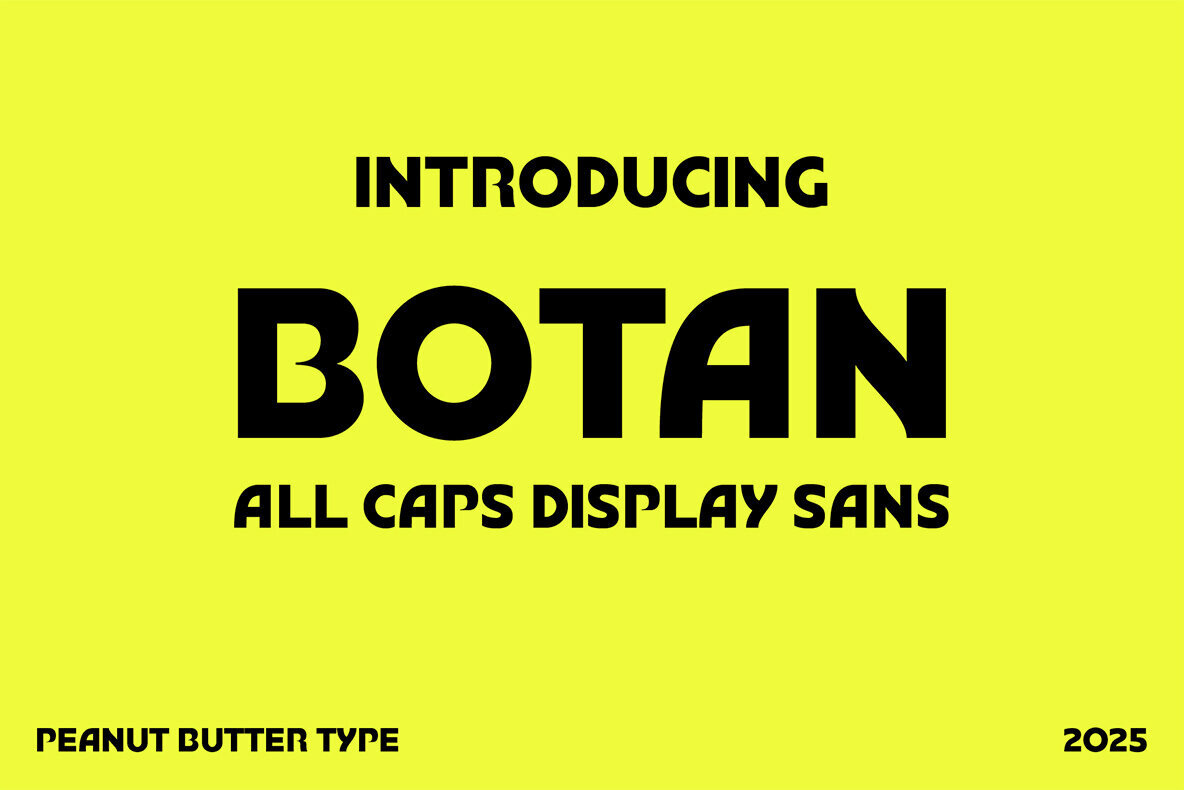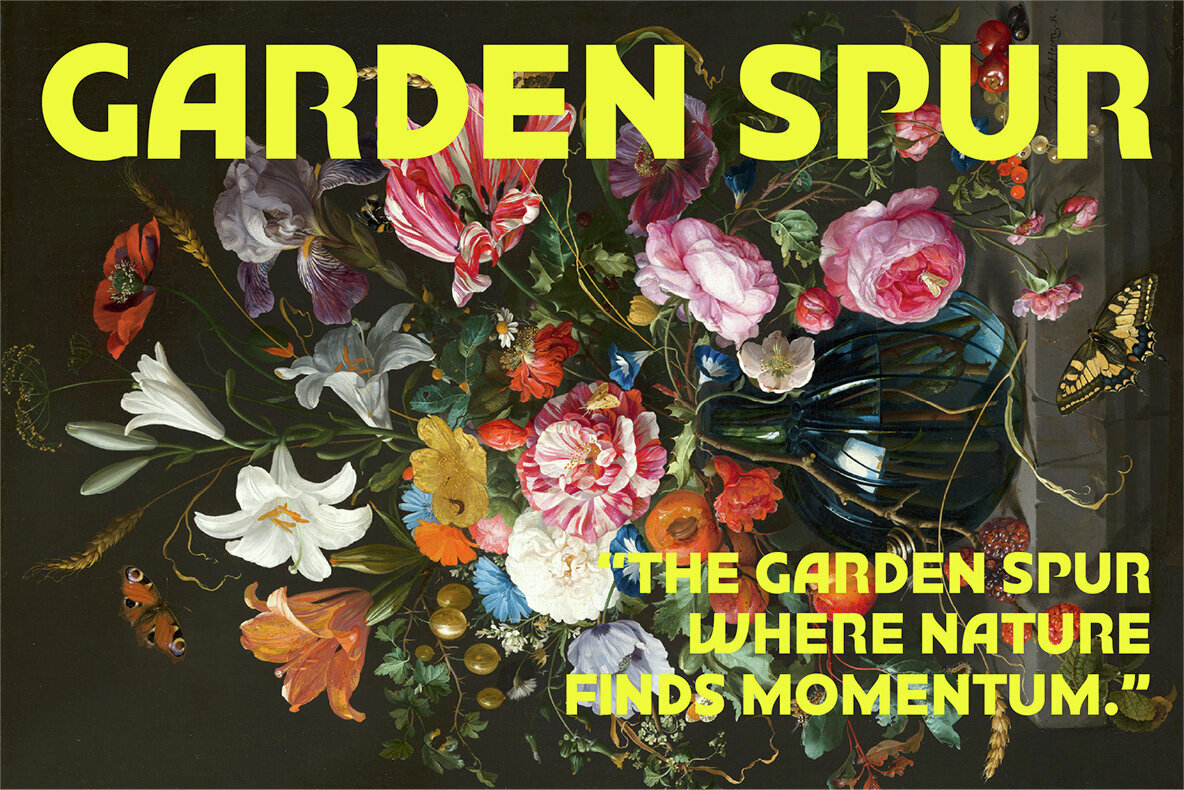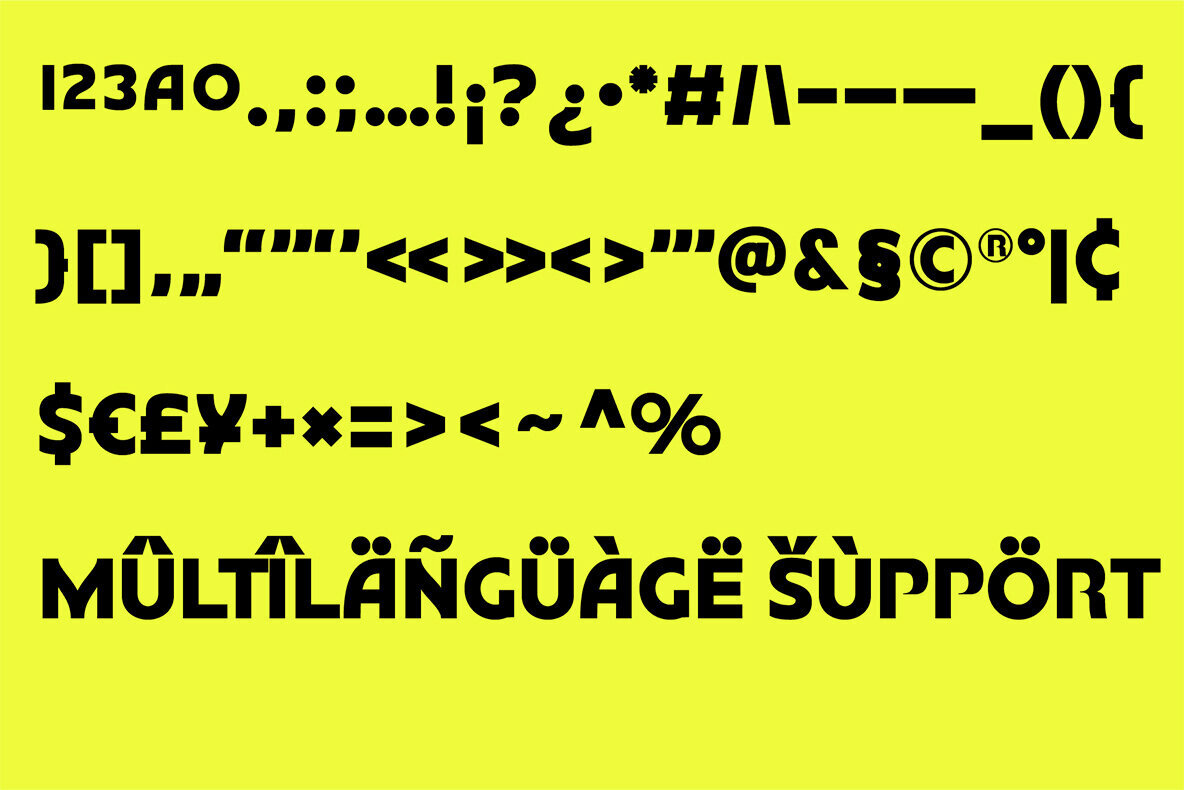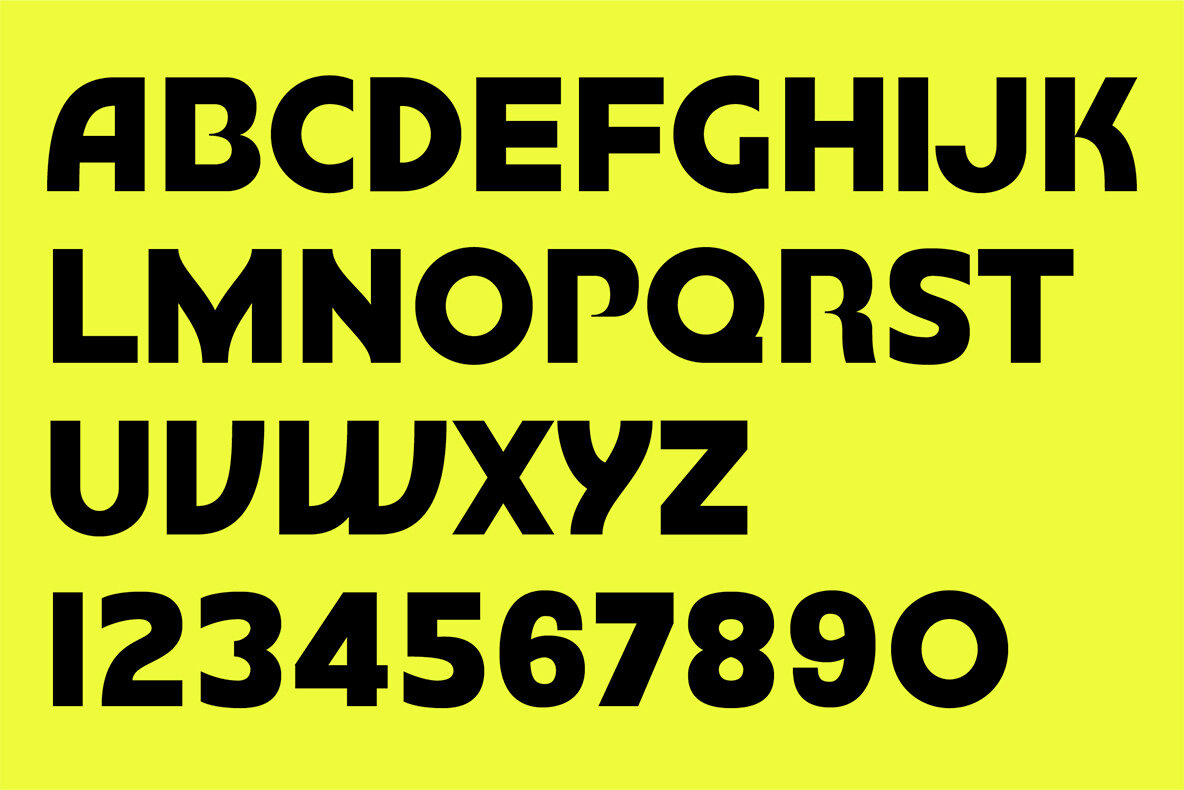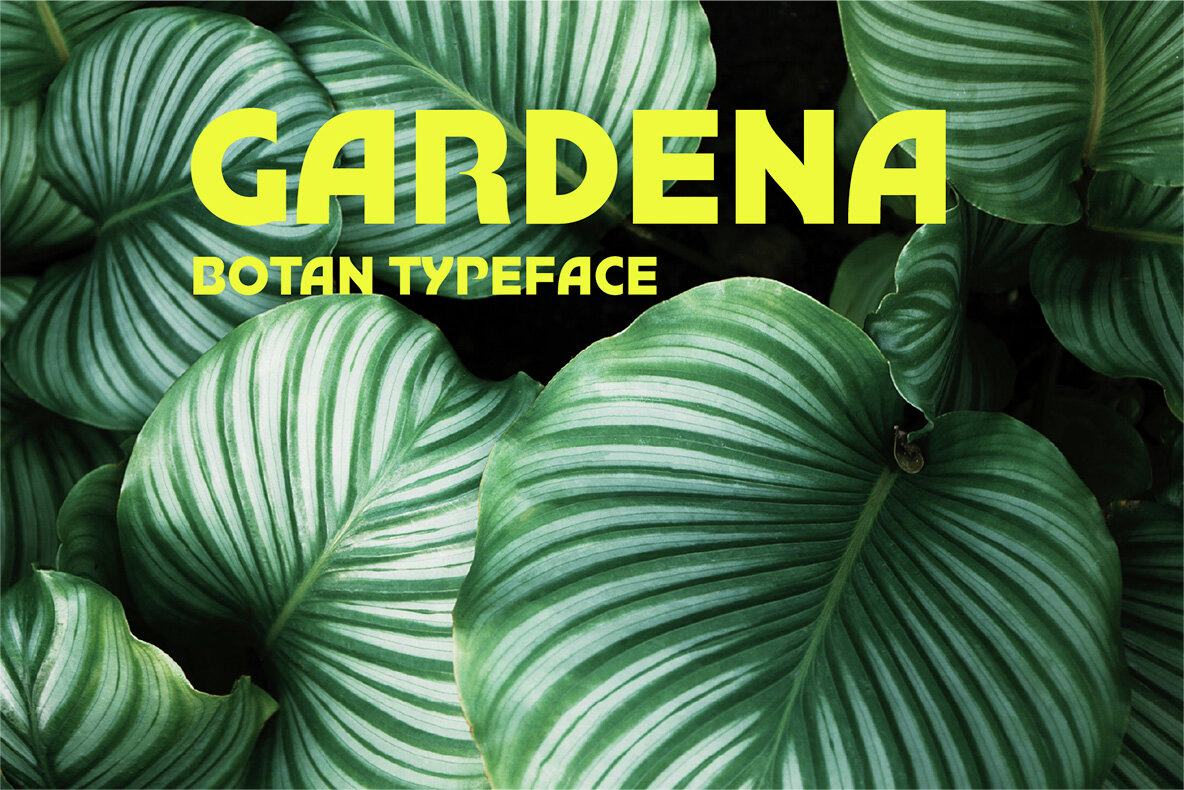
Botan Font
Botan Regular
Botan is an all-caps display sans serif designed to make a bold statement through clear geometry and confident forms. Its uppercase-only style captures immediate attention, delivering an air of authority and directness. Botan’s sharp edges and balanced proportions stand out at larger sizes, making it ideal for logos, titles, posters, and branding. This sans serif font embodies a modern, minimal aesthetic, emphasizing clarity and simplicity. The precise construction enhances readability, while the clean lines give your designs a sophisticated, contemporary feel. Botan is perfect for projects where strong visual presence and refined style are essential.Botan All-Caps Display Sans Serif Typeface